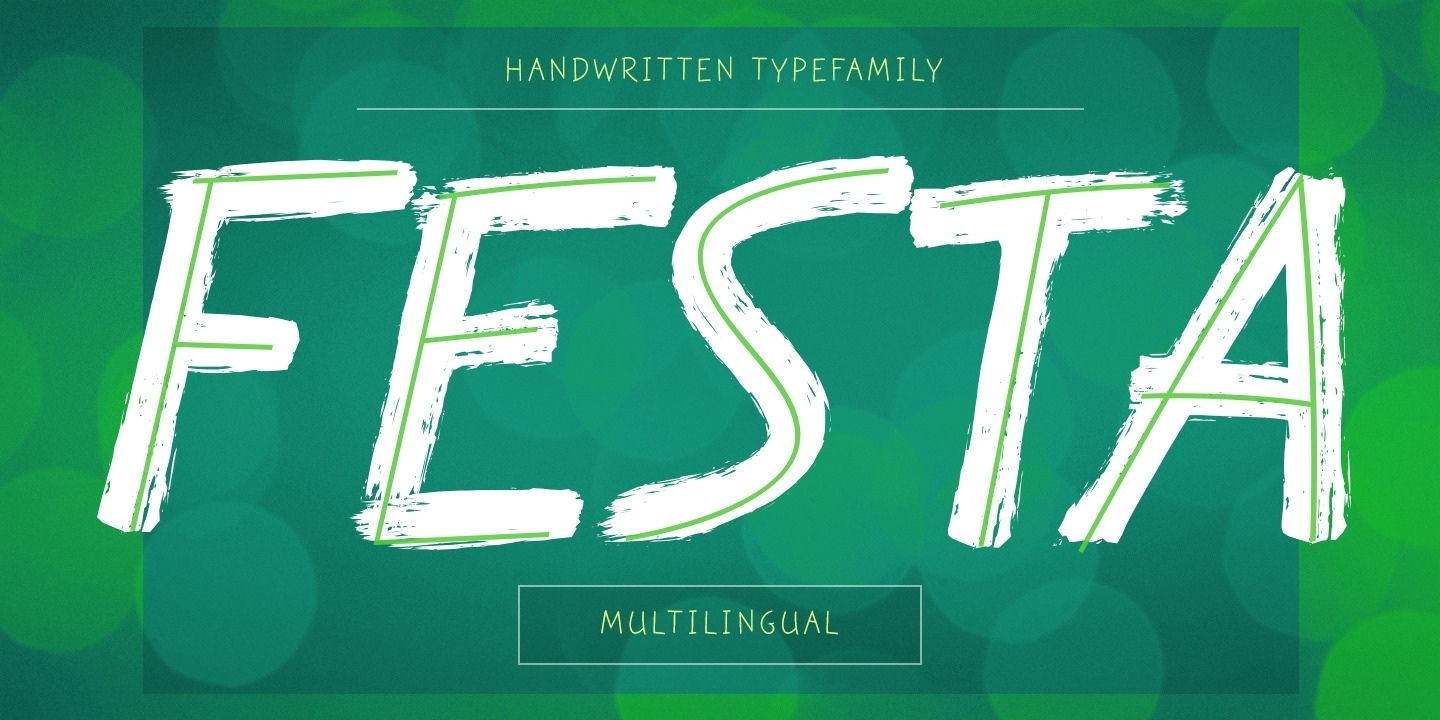
Festa & Festa Brush Font
Festa Festa Brush Font is perfect for festive party invitations, vibrant celebration branding, energetic event promotions, casual party decorations, fun birthday materials, lively festival marketing, colorful social media graphics, playful restaurant menus, and joyous celebration campaigns.
What makes Festa Festa Brush Font exciting is its exuberantly festive character that instantly ignites the party spirit through dynamic, hand-painted letterforms that pulse with celebration energy and unbridled joy. The font features bold brush strokes with authentic paint textures that capture the spontaneous excitement and colorful atmosphere of the most memorable celebrations. Its energetic design philosophy embodies the carefree happiness and infectious enthusiasm that makes every party unforgettable, making it perfect for brands that want to communicate pure fun, celebration excitement, and the irresistible urge to dance and celebrate life's joyous moments.
Festa Festa Brush Font family includes various party-inspired weights and styles such as Regular, Bold, and textured variations, often featuring celebration-themed alternates and festive decorative elements. The family may include party symbols, fiesta ornaments, and jubilant brush ligatures that enhance the font's celebratory aesthetic, providing designers with comprehensive options for creating dynamic typographic compositions that capture the essence of festive celebration culture.